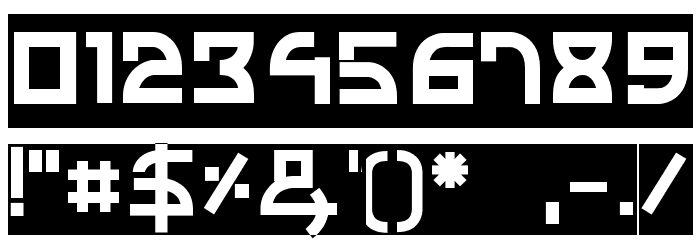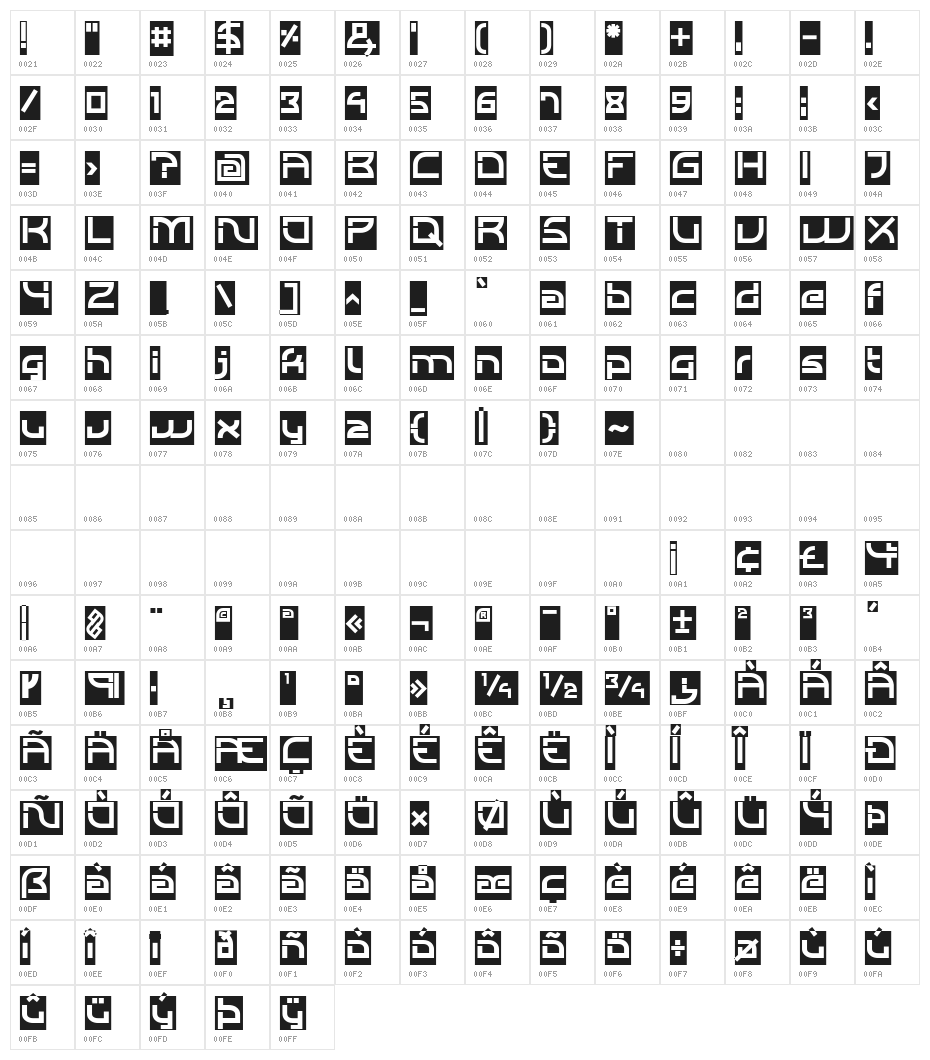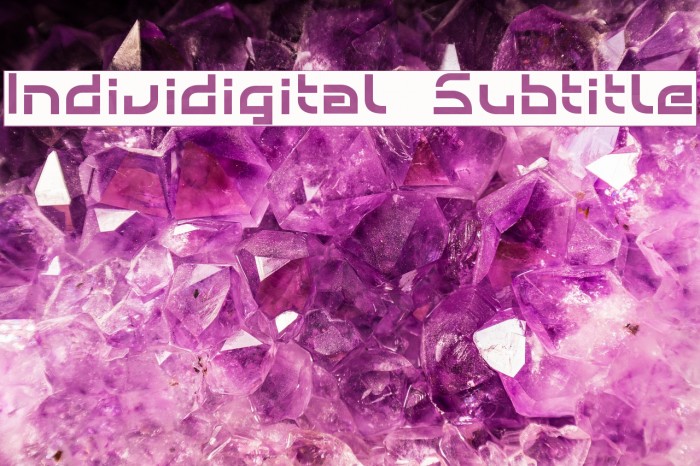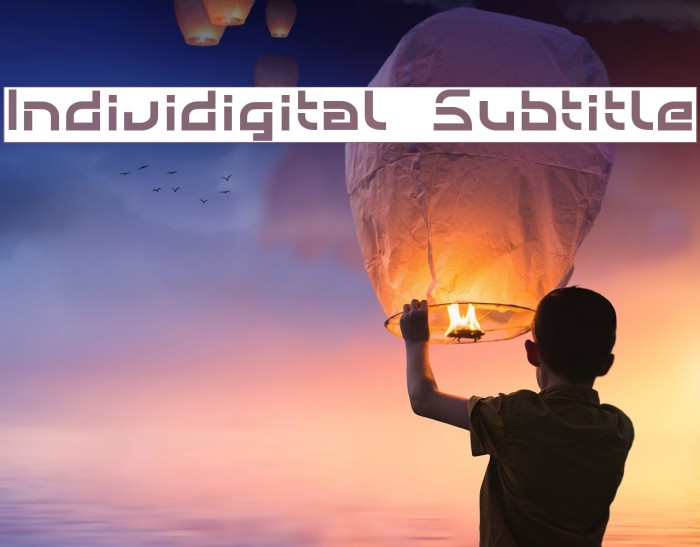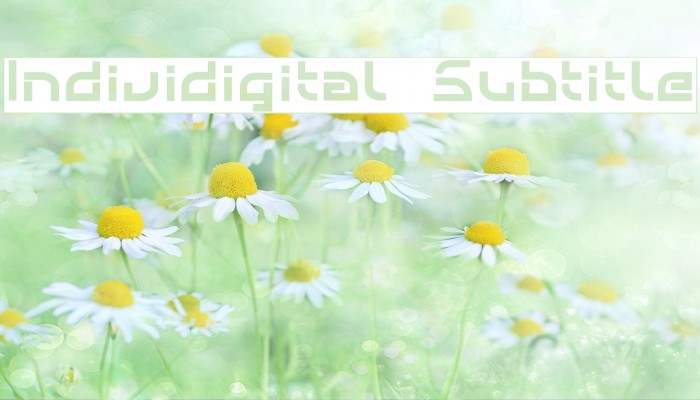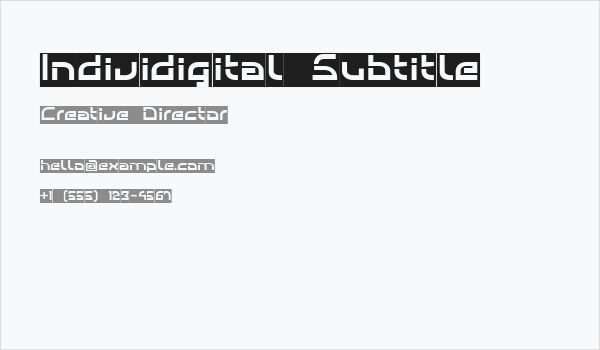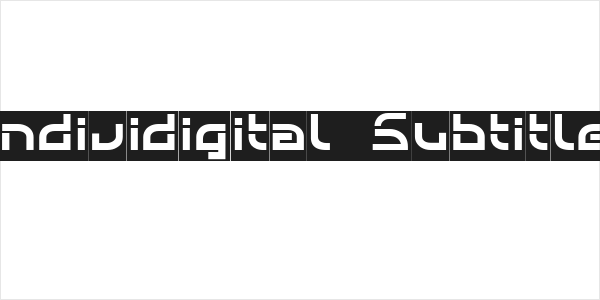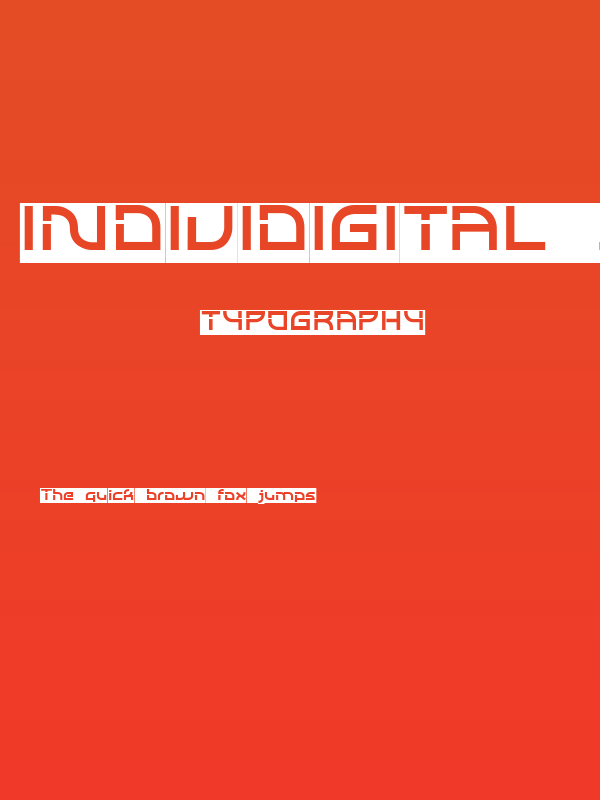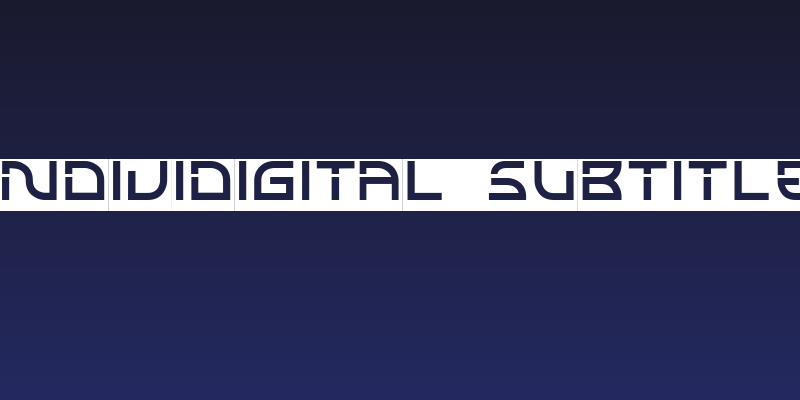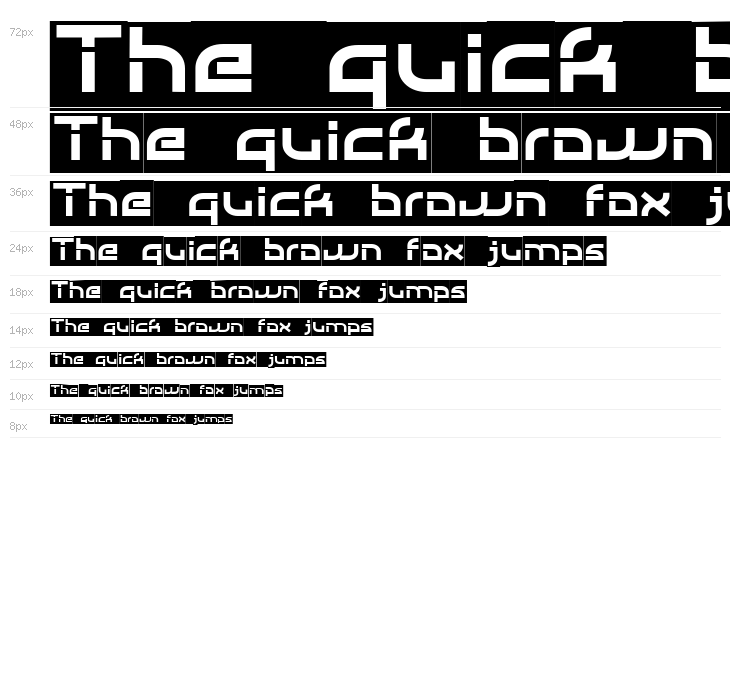
Individigital Subtitle Font
Individigital Subtitle Description
This font features a futuristic and geometric design, characterized by its bold and angular letterforms. The uppercase and lowercase letters maintain a consistent style, with sharp edges and a modern aesthetic. The numbers and special characters are designed to complement the alphabet, ensuring a cohesive look across all glyphs. The font's unique style makes it stand out, with a strong emphasis on symmetry and balance. Its bold appearance is ideal for making a statement, while the geometric shapes add a touch of sophistication and modernity.
| Proposed Projects | Ideal for technology branding, sci-fi movie posters, video game titles, and modern advertising campaigns. |